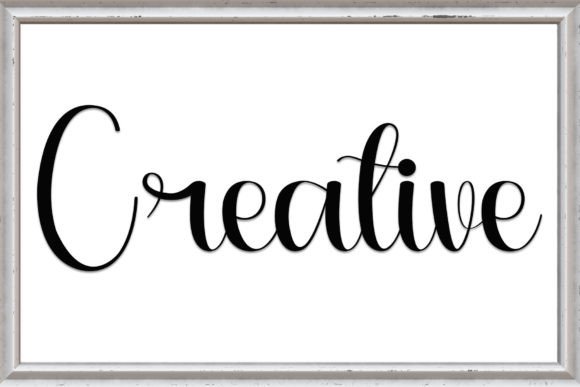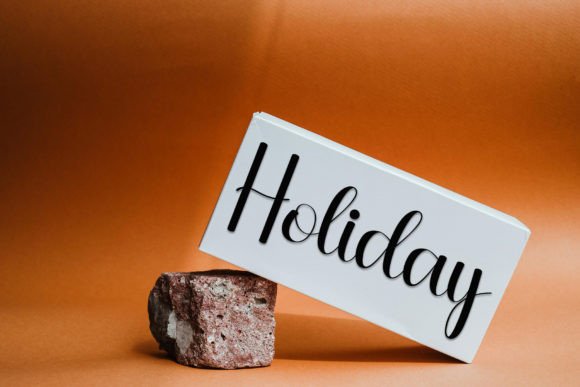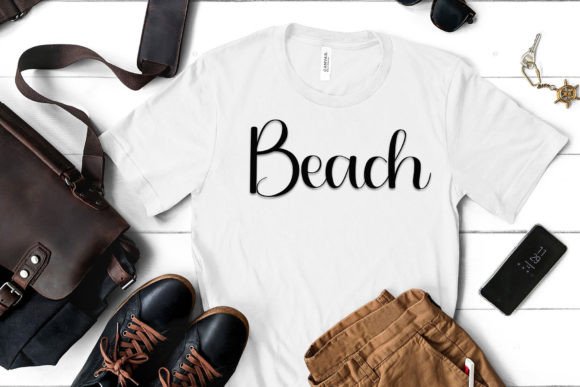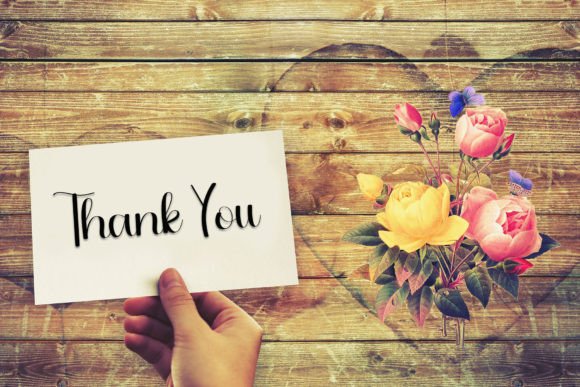
Gnome Font: Elevate Your Designs with Elegance and Class
In the world of typography, few fonts manage to capture the essence of timeless elegance and contemporary style as effectively as the Gnome Font. This trendy handwritten font is inspired by the classics of calligraphy, yet it boasts a modern atmosphere that is sure to make your design projects stand out. In this article, we’ll delve into the characteristics of the Gnome Font, its uses, and why it has become a favorite among designers and crafters alike.
The Inspiration Behind Gnome Font
Gnome Font draws its inspiration from the rich heritage of classic calligraphy. Its creator aimed to capture the fluidity, elegance, and impeccable form that define traditional calligraphic scripts, while infusing it with a contemporary twist. The result is a font that feels both nostalgic and fresh, making it versatile for a wide range of design applications.
Characteristics of Gnome Font
Gnome Font is characterized by its:
- Elegant Strokes: The font features smooth, flowing strokes that give it a luxurious feel.
- Contemporary Atmosphere: Despite its classic inspiration, Gnome Font has a modern vibe that fits well with current design trends.
- Legibility: It is highly legible, making it suitable for both headlines and body text.
- Versatility: Gnome Font can be used in various design projects, from branding and advertising to packaging and digital media.
Uses of Gnome Font
The versatility of Gnome Font makes it an excellent choice for a multitude of design projects, including:
- Branding and Logos: Add a touch of elegance and sophistication to your brand identity.
- Wedding and Event Invitations: The font’s classic yet modern feel makes it perfect for wedding invitations, event posters, and other formal announcements.
- Advertising and Marketing Materials: Use Gnome Font to give your ads, flyers, and brochures a high-end look.
- Packaging Design: Elevate your product packaging with a font that communicates luxury and quality.
- Digital Media: Gnome Font is also suitable for digital platforms, including website headers, social media graphics, and email newsletters.
Why Designers and Crafters Love Gnome Font
Designers and crafters appreciate Gnome Font for several reasons:
- Unique Aesthetic: It offers a unique aesthetic that sets their projects apart from the crowd.
- Easy to Use: Gnome Font is user-friendly and can be easily integrated into various design software.
- High-Quality: The font is of high quality, with clear and crisp lines that look great in both print and digital formats.
- Support for Multiple Languages: Gnome Font supports multiple languages, making it a great choice for international projects.
Tips for Using Gnome Font Effectively
To make the most of Gnome Font, consider the following tips:
- Pair it with Neutral Fonts: For body text, pair Gnome Font with a neutral, sans-serif font to create contrast and enhance readability.
- Experiment with Colors: While Gnome Font looks great in black, don’t be afraid to experiment with colors that match your brand’s palette.
- Adjust Letter Spacing: For headlines, adjusting the letter spacing can add to the font’s elegance and make it stand out.
Gnome Font is a versatile and elegant typeface that can add a touch of sophistication to any design project. Its blend of classic inspiration and modern style makes it a valuable asset for designers and crafters looking to create high-quality, visually appealing work. Whether you’re working on branding, advertising, packaging, or digital media, Gnome Font is sure to elevate your designs and leave a lasting impression on your audience.
With its impeccable form, elegant strokes, and contemporary atmosphere, Gnome Font is more than just a font – it’s a tool for creating memorable and impactful designs. So, why settle for ordinary when you can add a touch of elegance and class to your projects with Gnome Font?